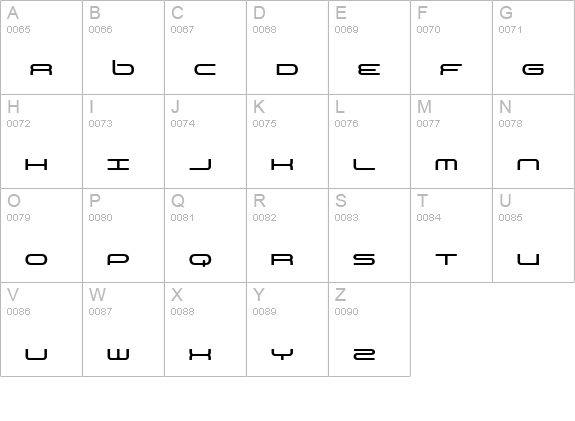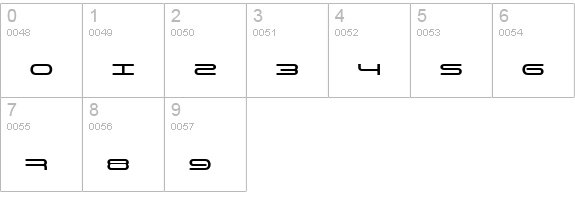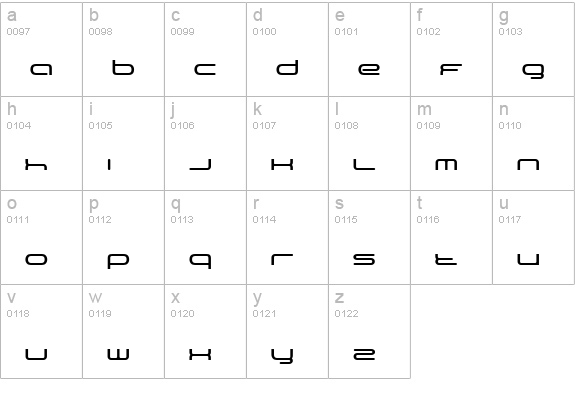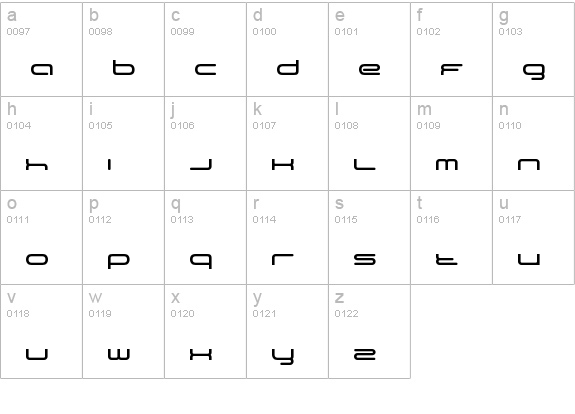
BN Year 2000 Font Details
Introducing the BN Year 2000 font, a modern and sleek typeface perfect for adding a futuristic touch to your designs. This unique font features clean lines and a contemporary style that will make your projects stand out. Whether you're creating posters, logos, or website graphics, BN Year 2000 is sure to make a bold statement. The best part? This eye-catching font is available for free download at FontsMarket.com. Simply visit the website to get your hands on this versatile typeface and start incorporating it into your designs today. Don't miss out on the opportunity to enhance your creative projects with the stylish and dynamic BN Year 2000 font. Download it now and let your imagination run wild!